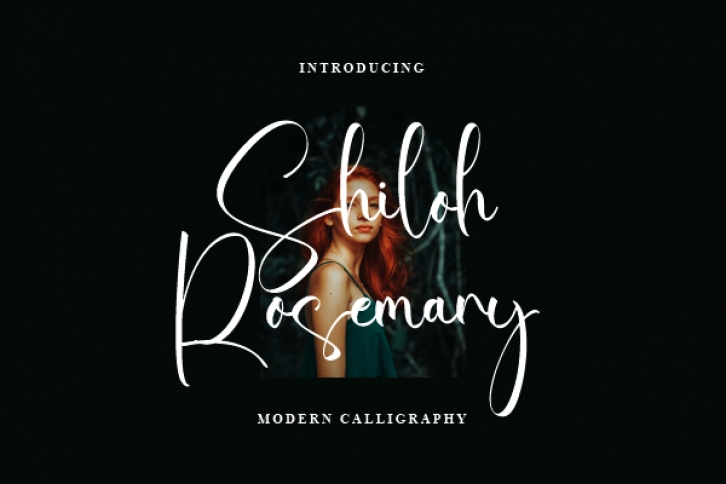
Shiloh Rosemary is a sweet and subtle handwritten font that is crafted with great care for maximum results. It will add elegance and class to any of your design projects. This font can be used to write various kinds of products according to the aspect of each need.